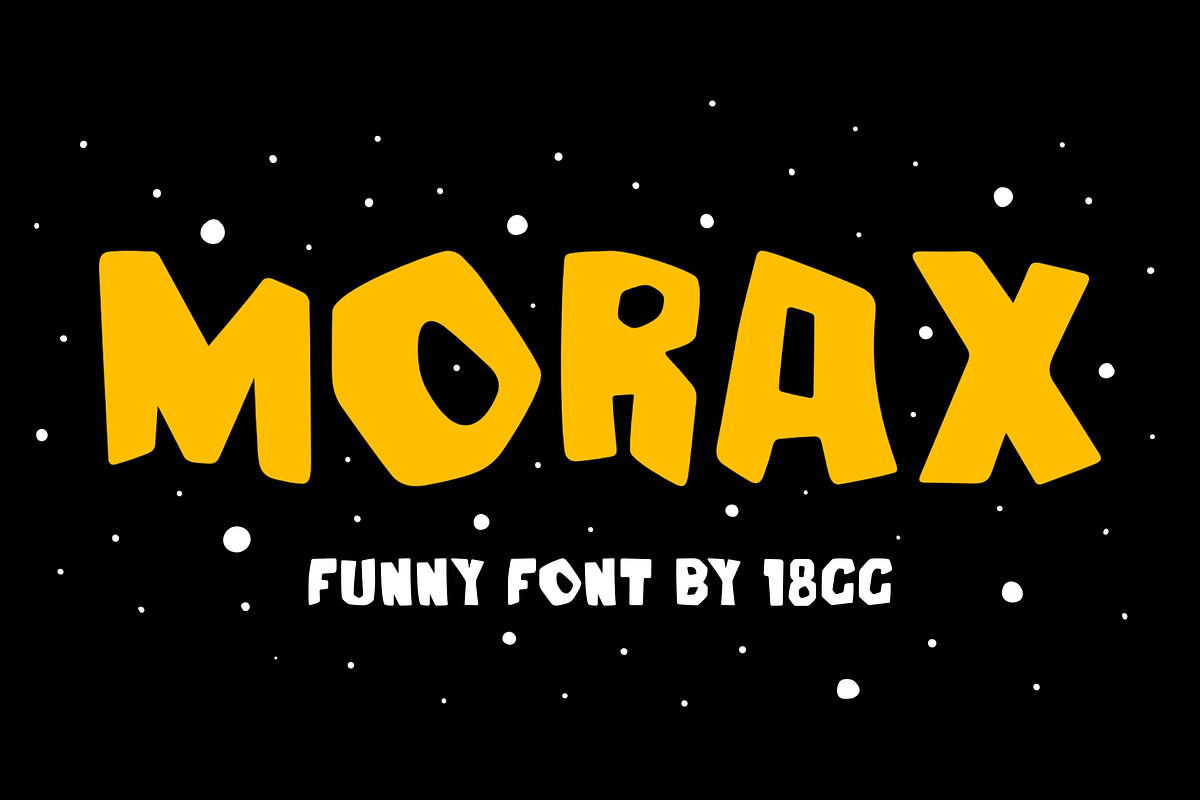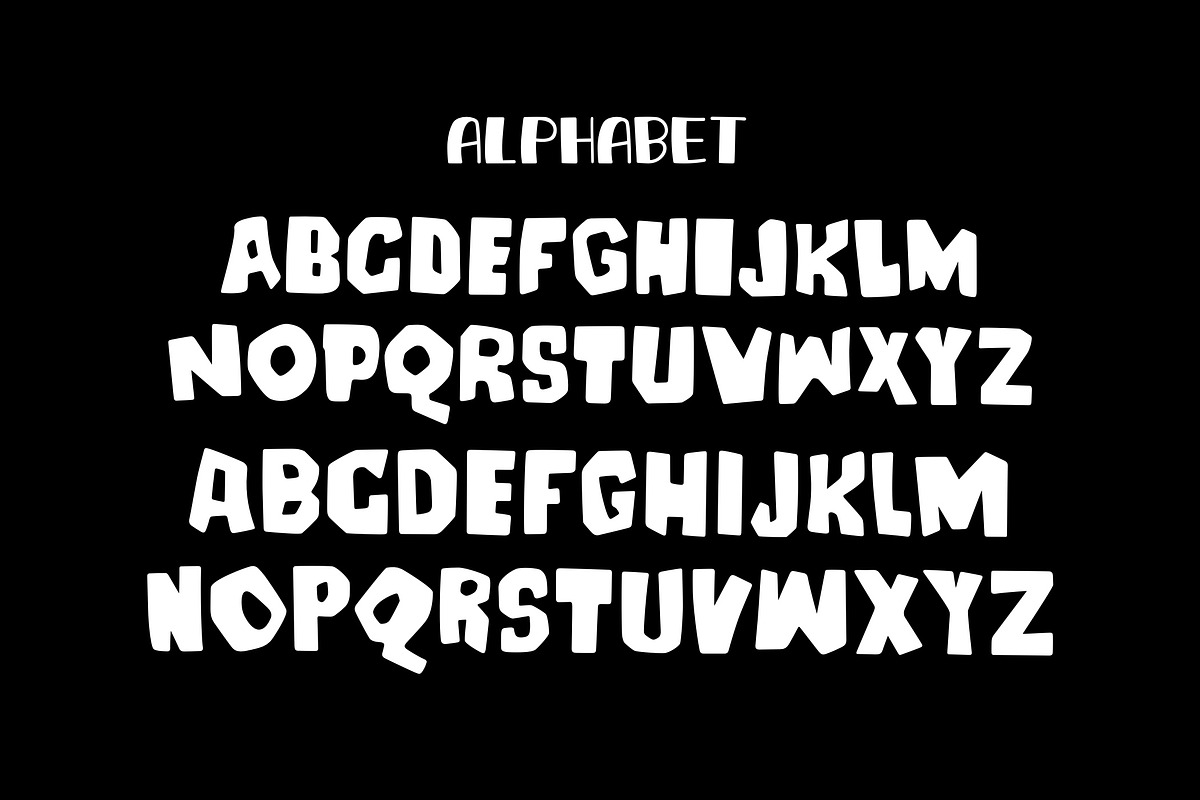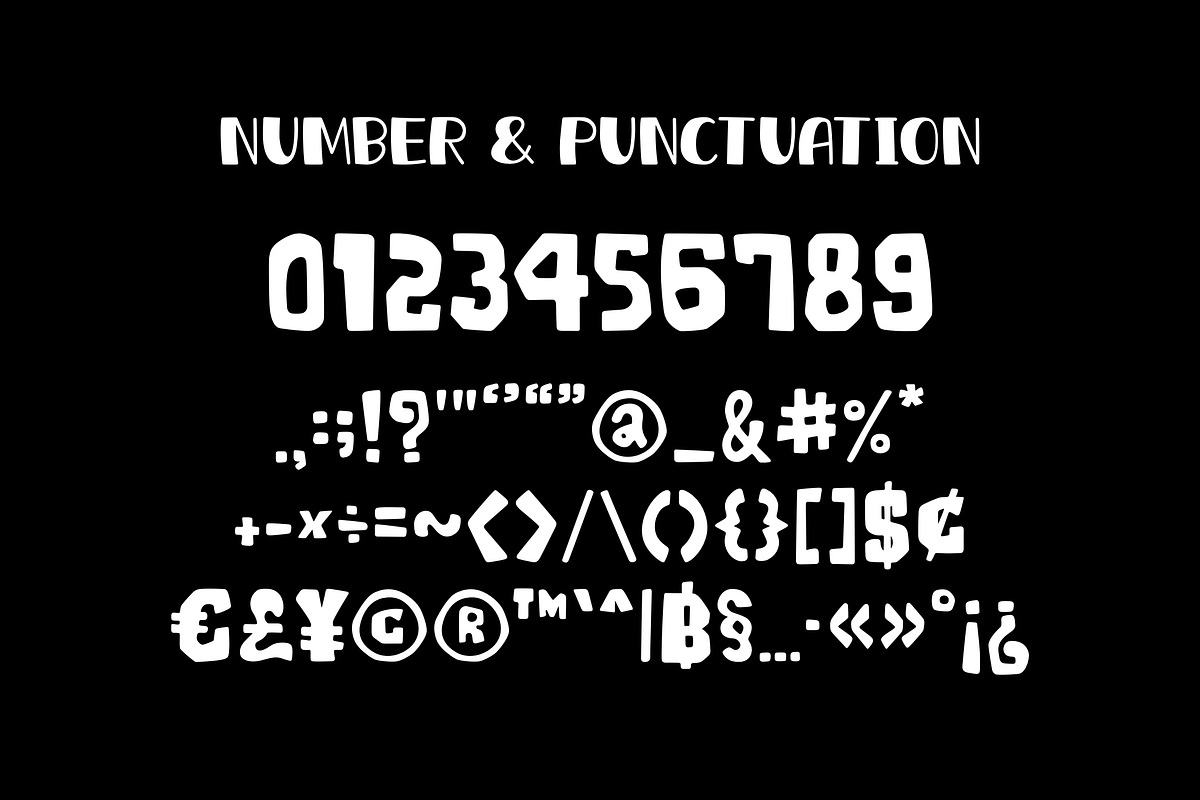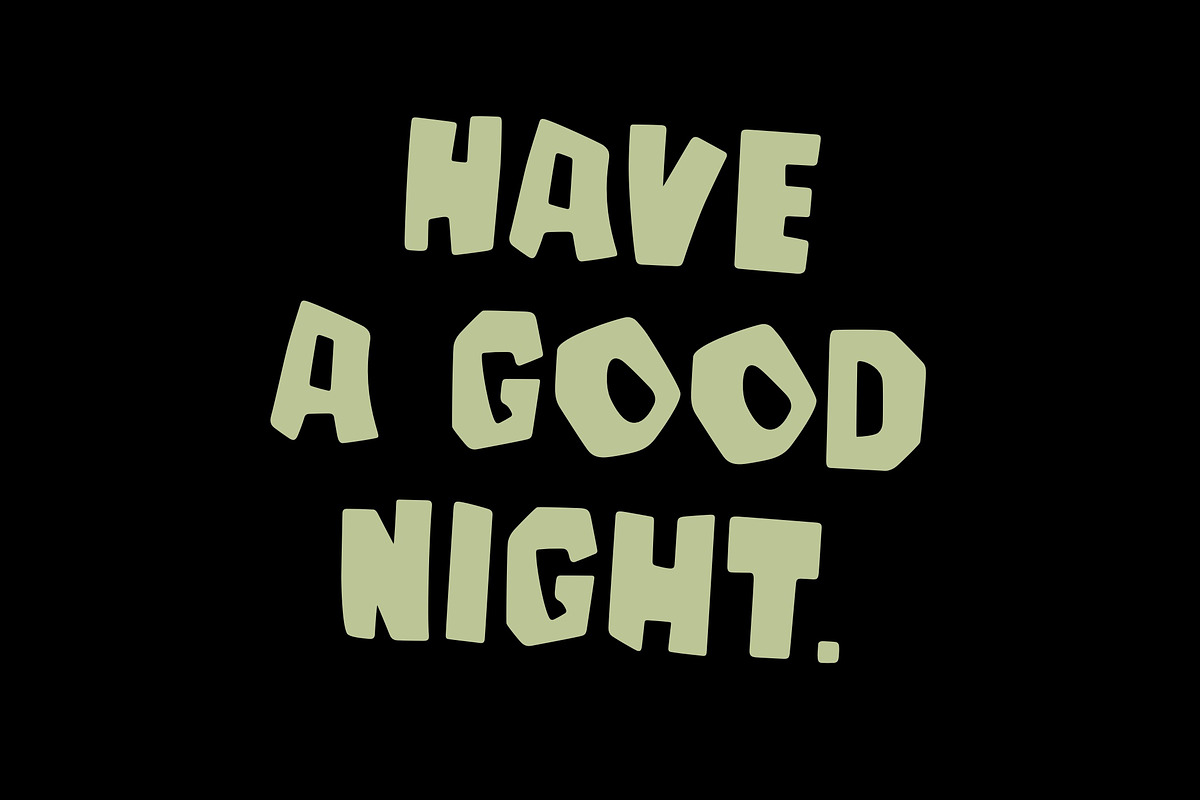
Morax is a solid like stone styles. This unique font grabs attention in print, packaging, and social media, making it perfect for creating a distinctive and memorable visual impact.